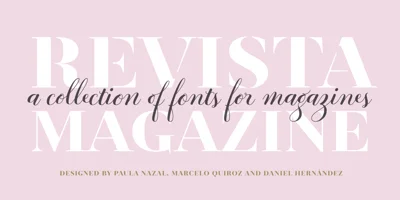
Revista Font
Revista Font is perfect for sophisticated magazine layouts, editorial publication designs, contemporary newspaper headlines, professional journal covers, cultural lifestyle magazines, fashion publication typography, modern media company branding, elegant periodical designs, distinguished editorial content, and refined publishing house identities. Its editorial sophistication character makes it ideal for projects requiring publishing excellence and contemporary media authenticity.
What makes Revista Font exciting is its professional embodiment of editorial sophistication and publishing excellence with balanced letterforms and contemporary characteristics that capture the essence of modern journalism and media design excellence. The font features optimized reading proportions, editorial-inspired details, and systematic character construction that create authentic publishing atmosphere and media appeal. Its professional personality brings credibility and contemporary elegance to designs while maintaining the readability essential for editorial communications and publishing presentations. The carefully crafted editorial elements ensure optimal reading experience while preserving the distinctive character that embodies the essence of modern publishing and media excellence.
Revista Font comes in multiple editorial variations including Light, Regular, Medium, Bold, and Display styles. Each family member maintains the distinctive publishing character while offering comprehensive flexibility for editorial typography and media brand system development. The complete font family includes alternate characters, editorial symbols, and publishing punctuation marks that provide extensive tools for creating immersive media design experiences and authentic editorial brand storytelling.
Whether you're developing publishing brands, media companies, or editorial content projects, Revista Font provides the professional sophistication needed to communicate with readers and media audiences who appreciate editorial quality and contemporary publishing excellence. The font's editorial appeal resonates with publishers, journalists, and media professionals seeking authentic publishing credibility and editorial sophistication. Its comprehensive character set includes editorial symbols and publishing marks, making it perfect for creating complete media brand systems and memorable editorial storytelling across diverse publishing applications and content-focused design projects that celebrate journalism excellence and contemporary media design.